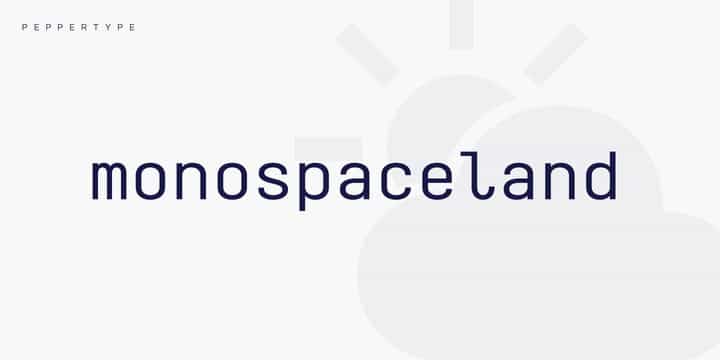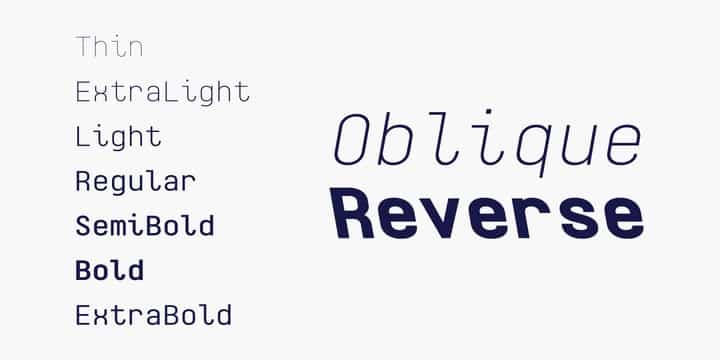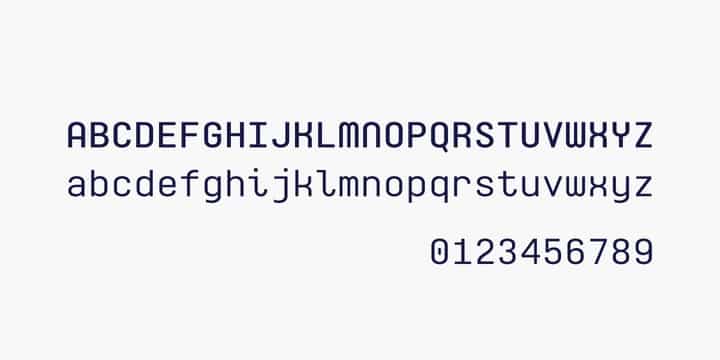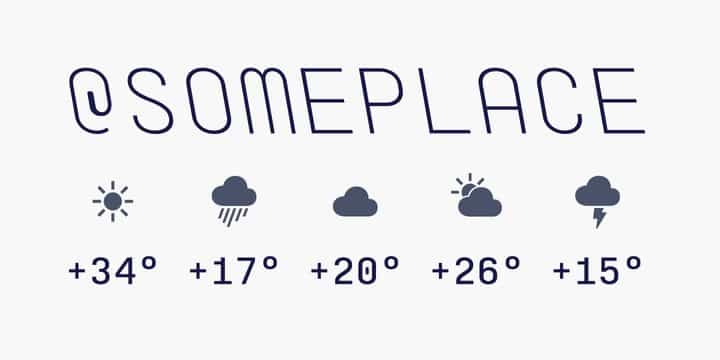
Monospaceland is a strong attractive, elegant, and contemporary font. It was created and distributed with Pepper Type. It’s a monospaced round typeface that comes in seven weights, with extensive support for languages (Cyrillic included) small capitals as well as some double-width variants to add some excitement.